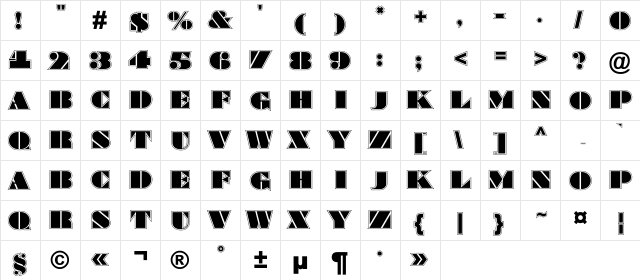
a_BraggaTitulGr Regular
Design Context for a_BraggaTitulGr Typeface
a_BraggaTitulGr is a composed and adaptable typeface that performs quietly and consistently across a wide range of design contexts.